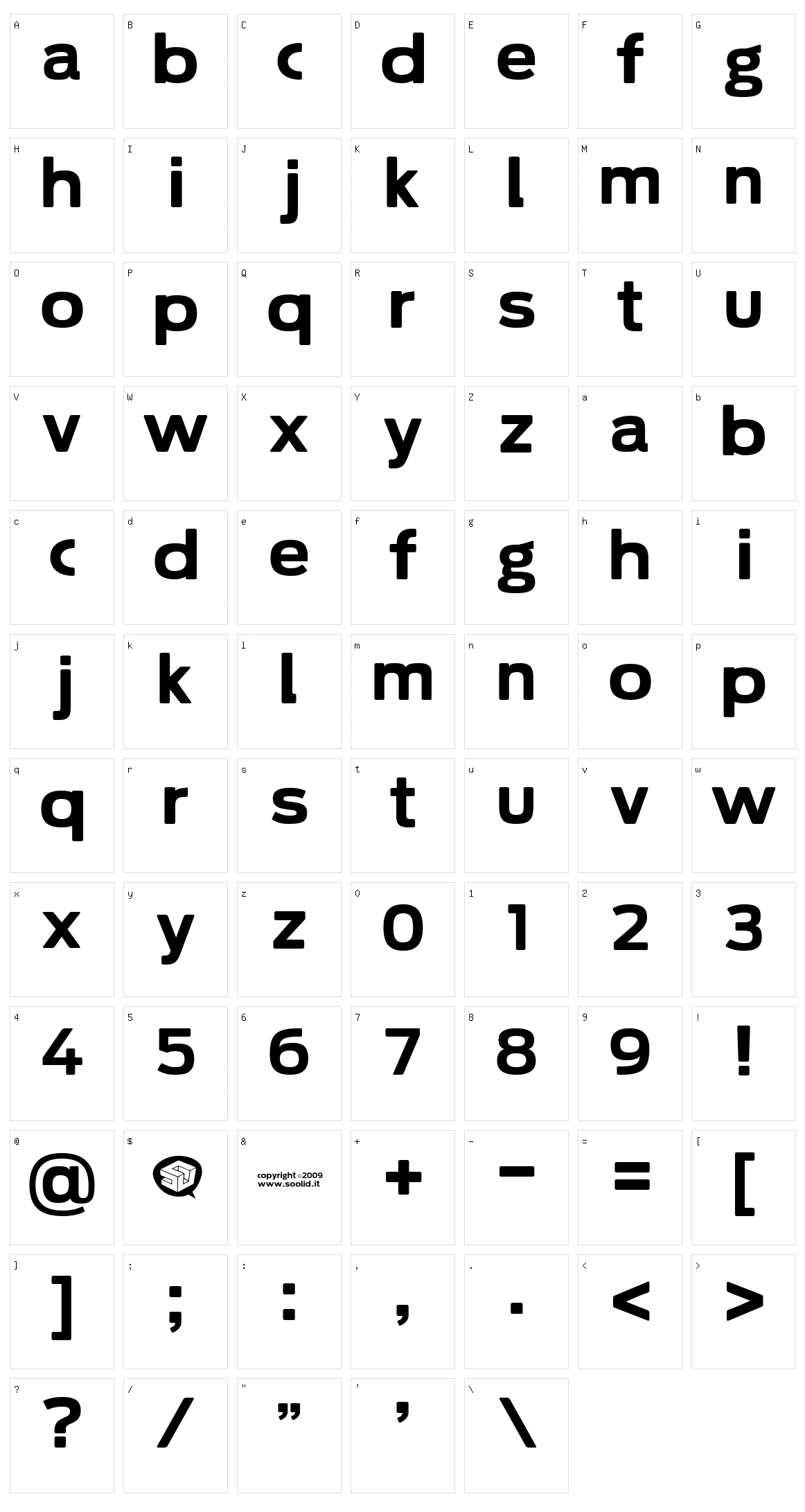
As you'll notice soolidium not a complete font set but a
work in progress that requires many adjustments and bug fixes.
You'll probably don't cares at all but soolidim is the
font used for our soolid logo